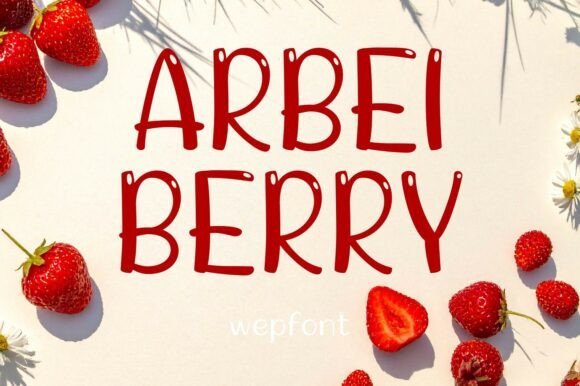
Introduction to Arbei Berry Font
Introducing Arbei Berry, a sweet and playful display font that captures the whimsical essence of freshly picked berries.
This font features charming, slightly irregular letterforms with a handcrafted feel, reminiscent of a joyful, organic aesthetic Its rounded edges and friendly appearance evoke a sense of natural sweetness and lightheartedness, perfect for conveying warmth and deliciousness.